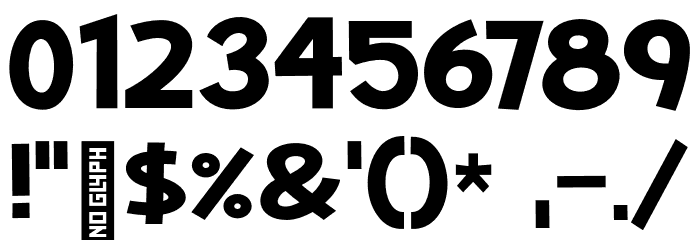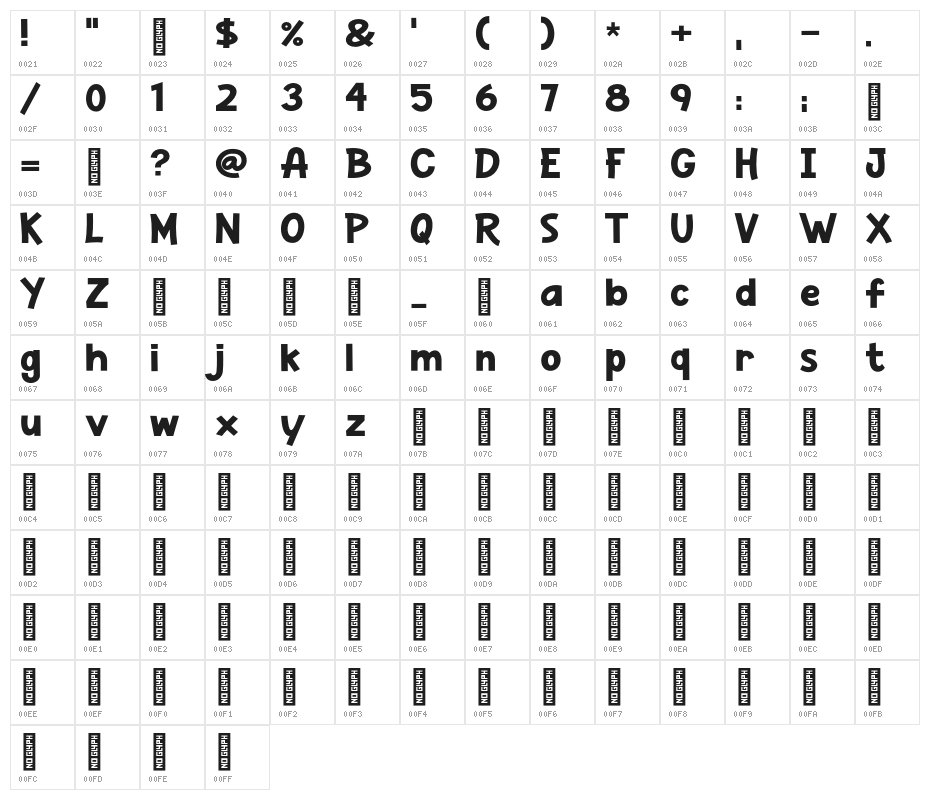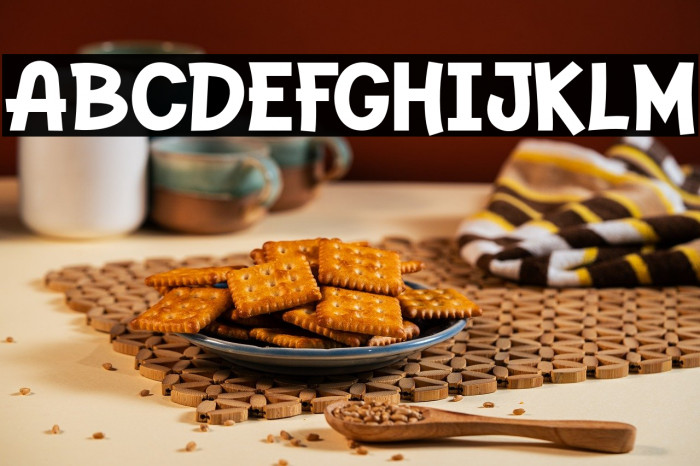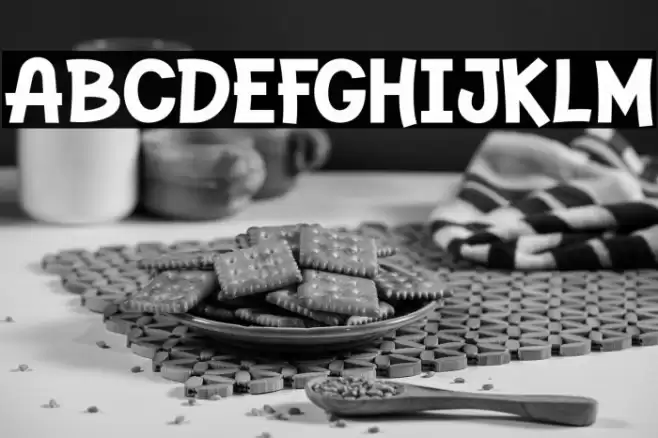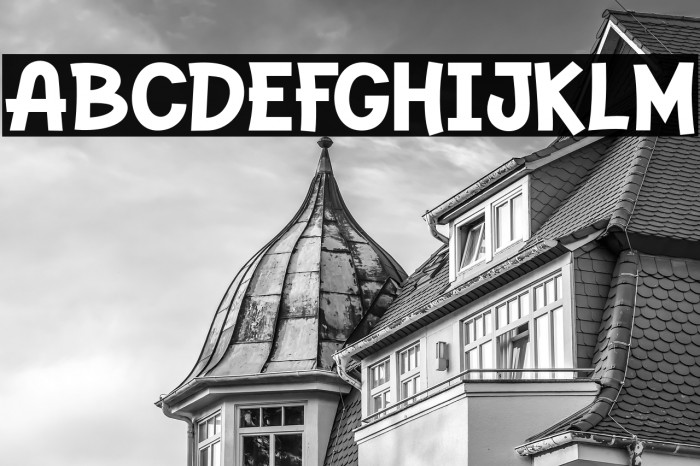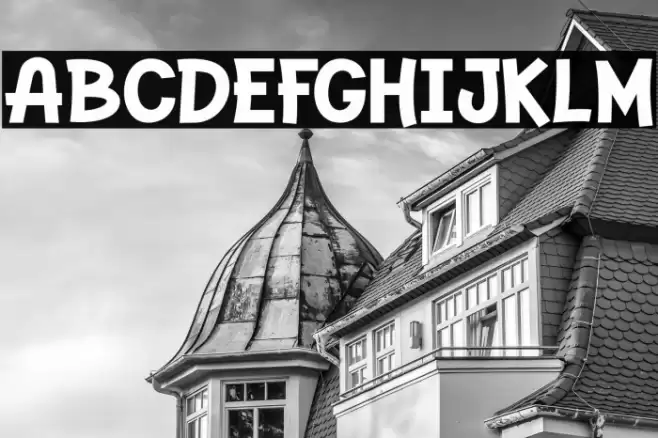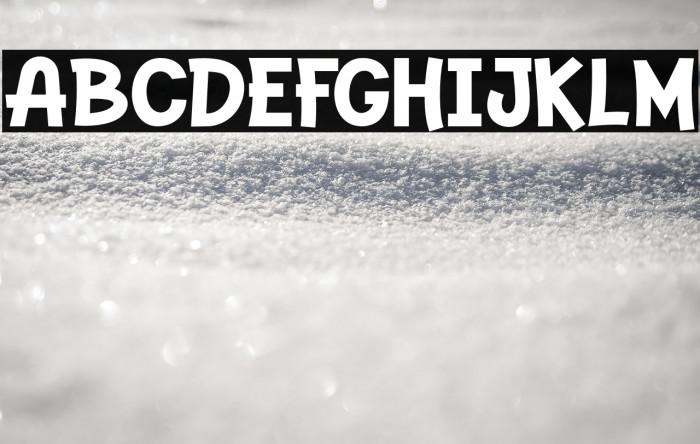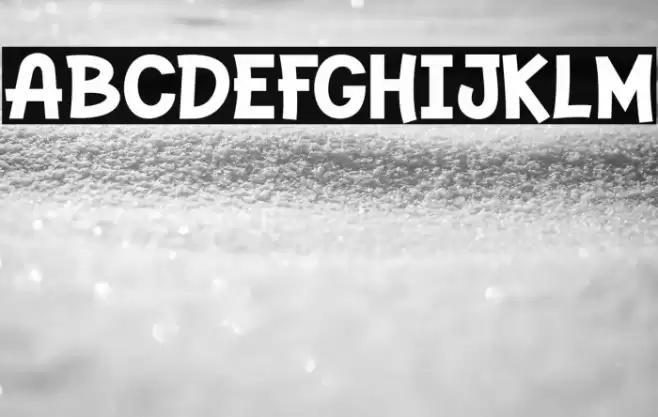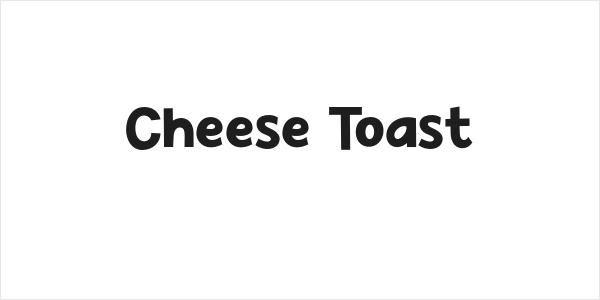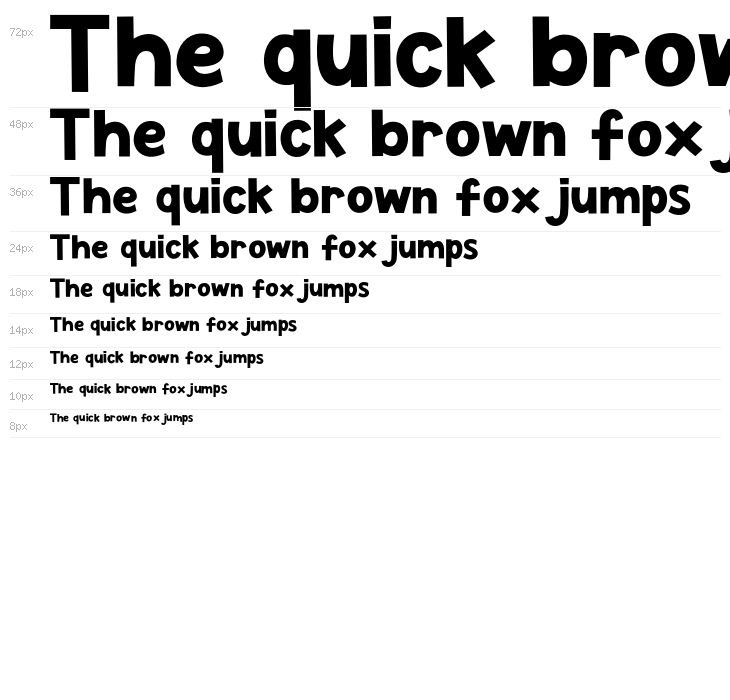
Cheese Toast Font
Cheese Toast Description
This font features a playful and bold design, characterized by its thick, rounded strokes and slightly irregular shapes that give it a hand-drawn appearance. The uppercase letters are particularly wide and expressive, with a slight tilt that adds to the whimsical feel. The lowercase letters maintain a consistent style, with rounded edges and a friendly demeanor. Numbers are bold and clear, making them easily readable. Special characters are designed to match the overall playful aesthetic, ensuring a cohesive look across all text elements.
| Proposed Projects | Ideal for children's books, playful branding, posters, and any project requiring a fun, approachable typeface. |